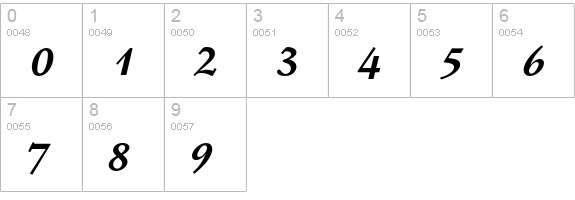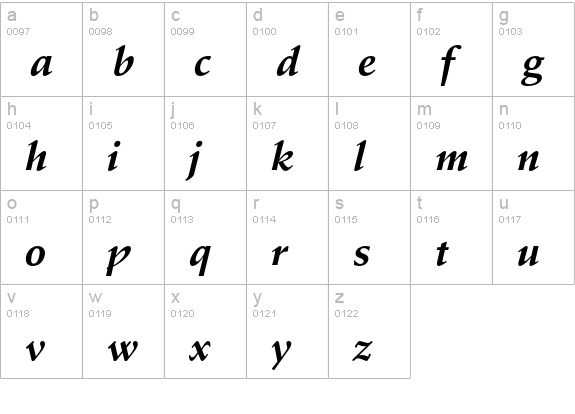
Stempel Schneidler Std Bold Italic is a strong, high-contrast, italic variant in the Stempel typeface family \xE2\x80\x94 well suited to headlines, attention-grabbing titles, and strong calls-to-action.
Stempel Schneidler Std Bold Italic font is a bold and dynamic typeface that exudes elegance and sophistication. The combination of thick strokes and slanted italics creates a strong visual impact, making it perfect for headlines, titles, and other display purposes. This font strikes the perfect balance between traditional elegance and modern flair, making it a versatile choice for a wide range of design projects. And the best part? Stempel Schneidler Std Bold Italic font is available for free download at FontsMarket.com. Whether you're working on a branding project, a poster design, or any other creative endeavor, this font is sure to make a statement and elevate your design to the next level. Don't miss out on the opportunity to add this stunning typeface to your font collection today!